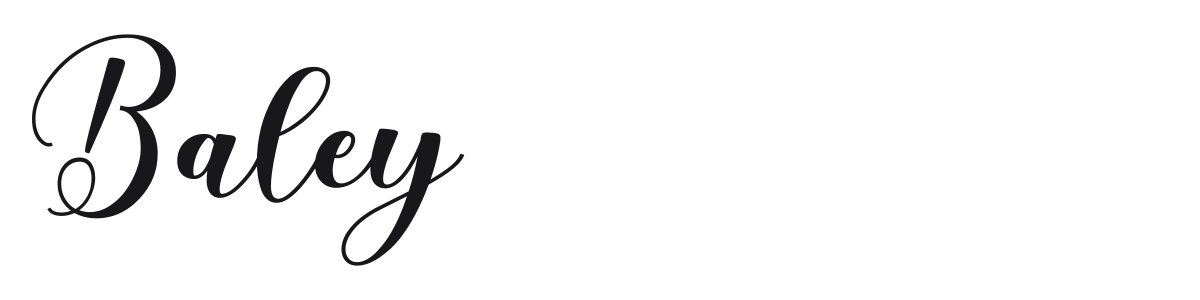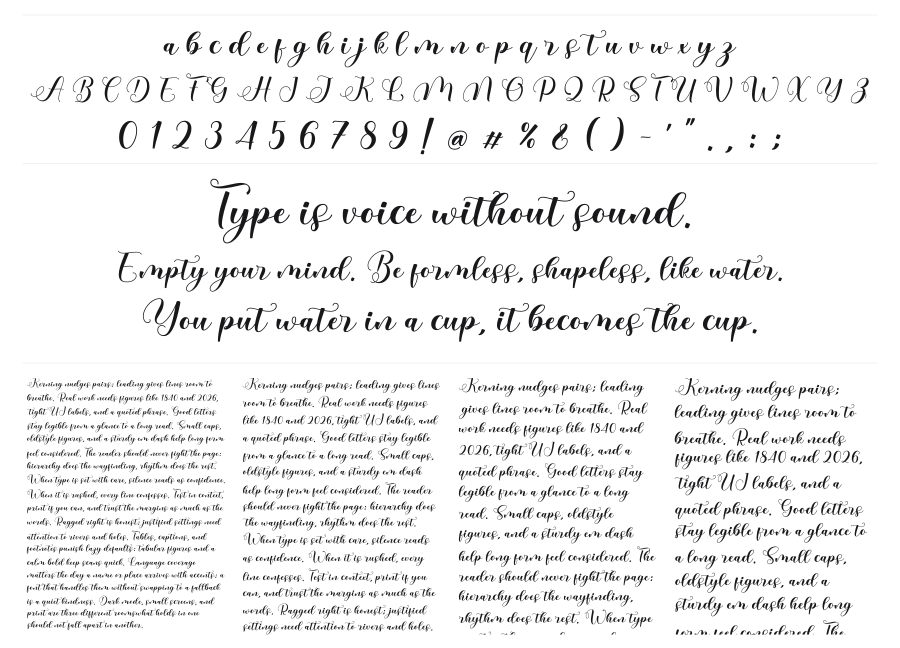
Baley
Baley is a contemporary brush-script with lush stroke contrast, looping swashes, and a bouncy, handcrafted rhythm. The letters flow and connect generously, giving it a warm, celebratory energy suited to invitations, brand identities, and lifestyle packaging. It sits comfortably between casual and refined.